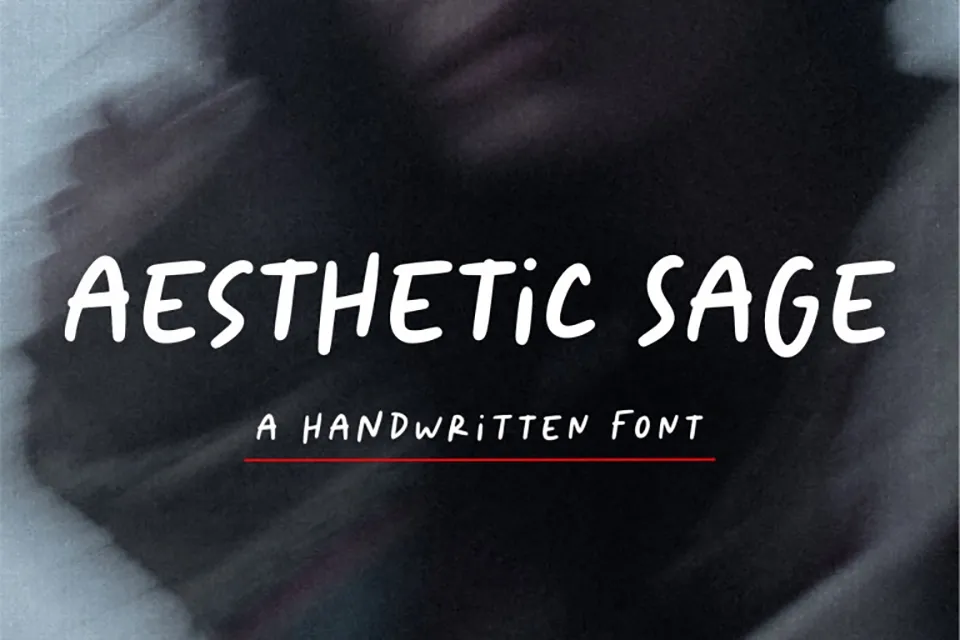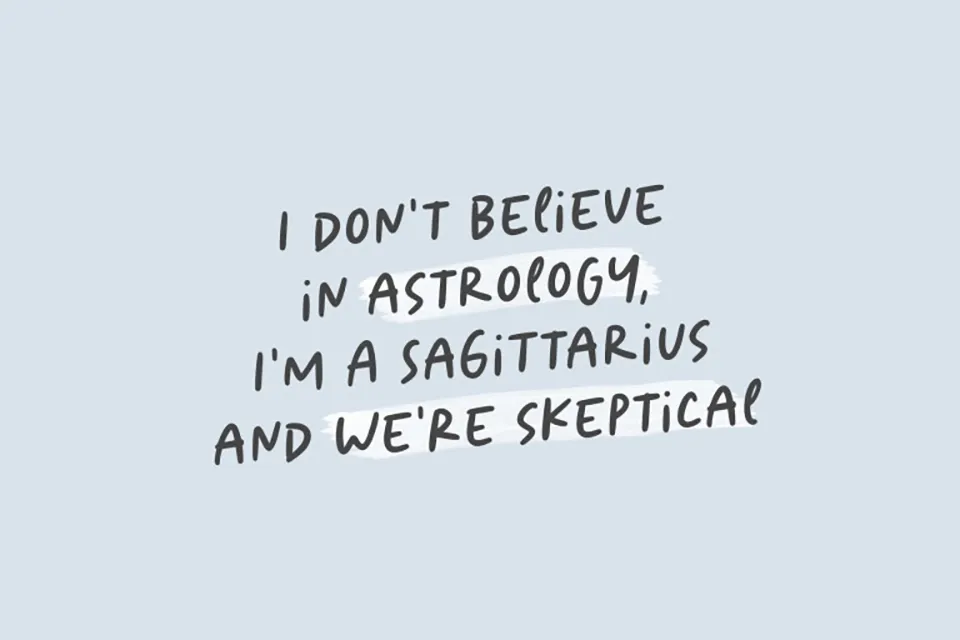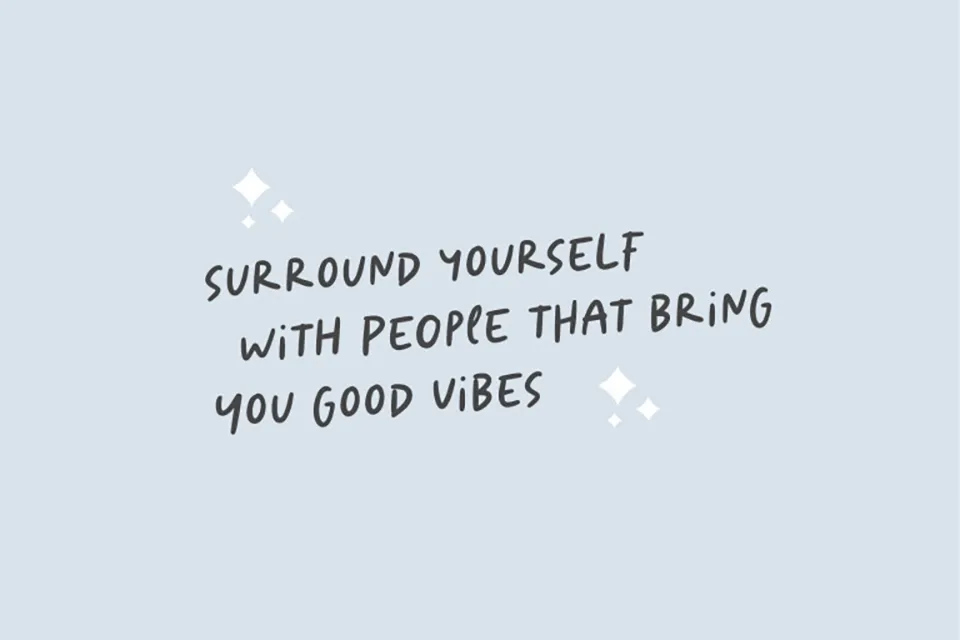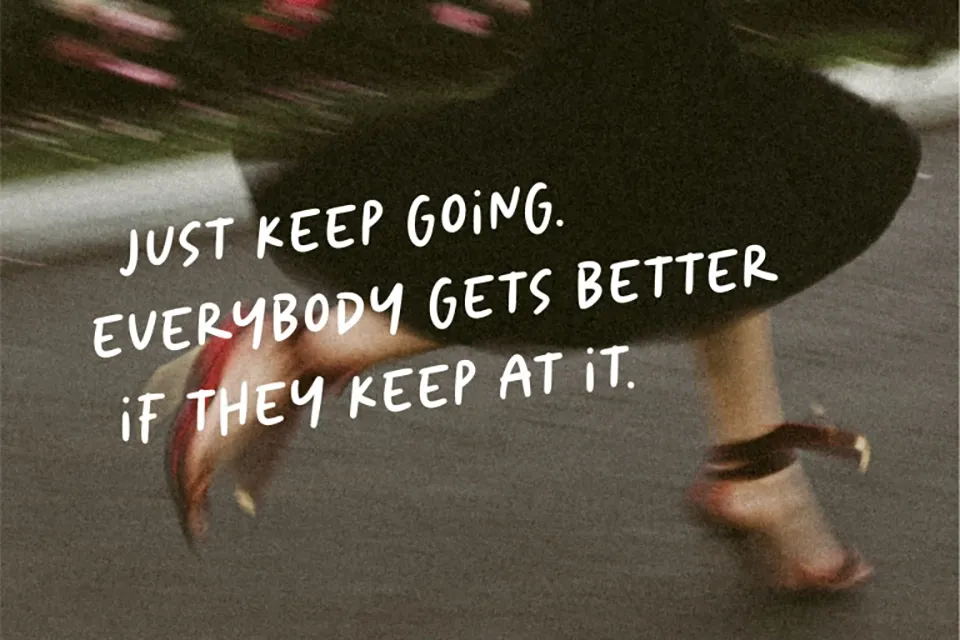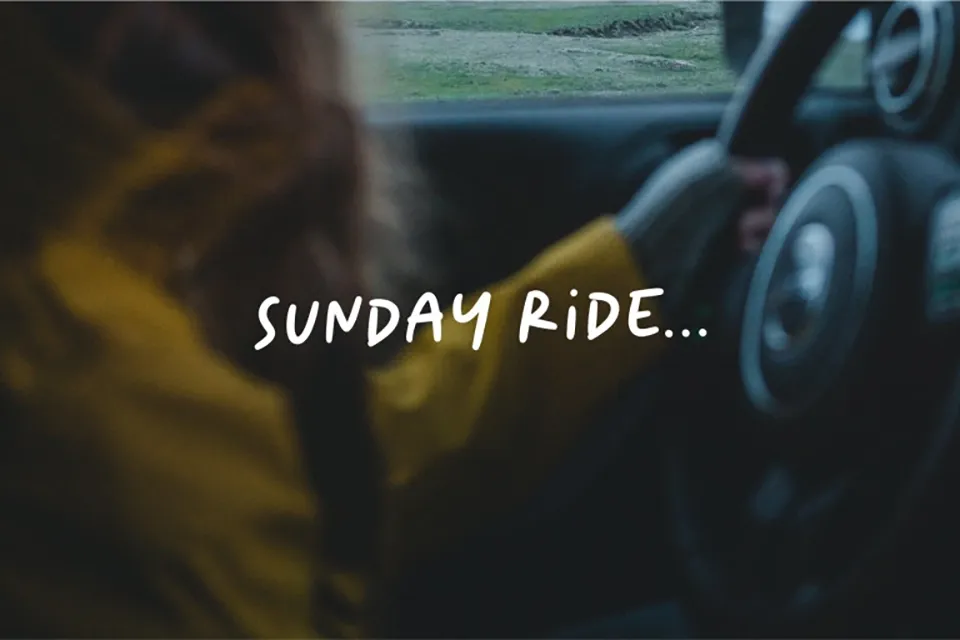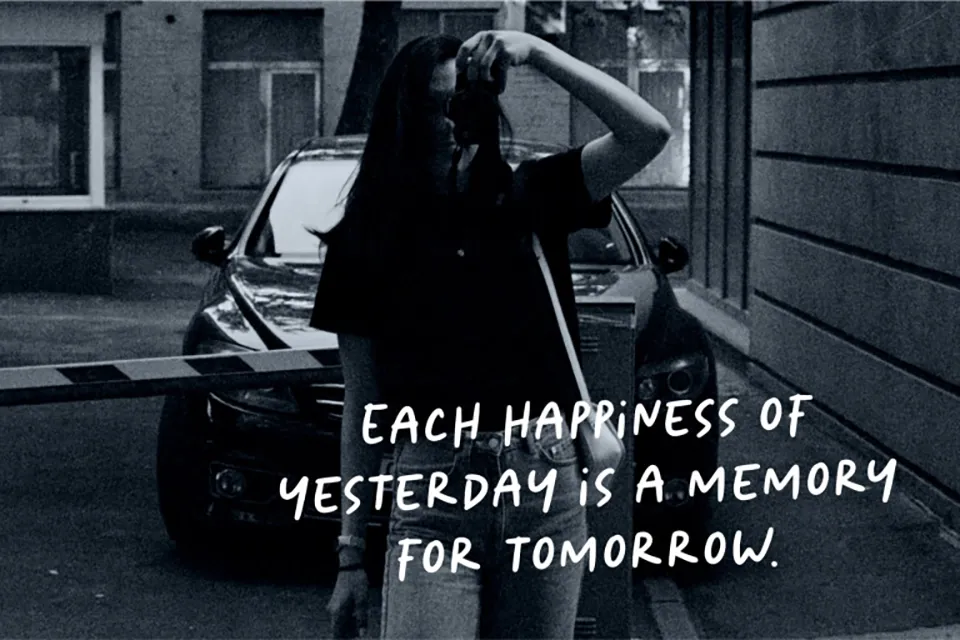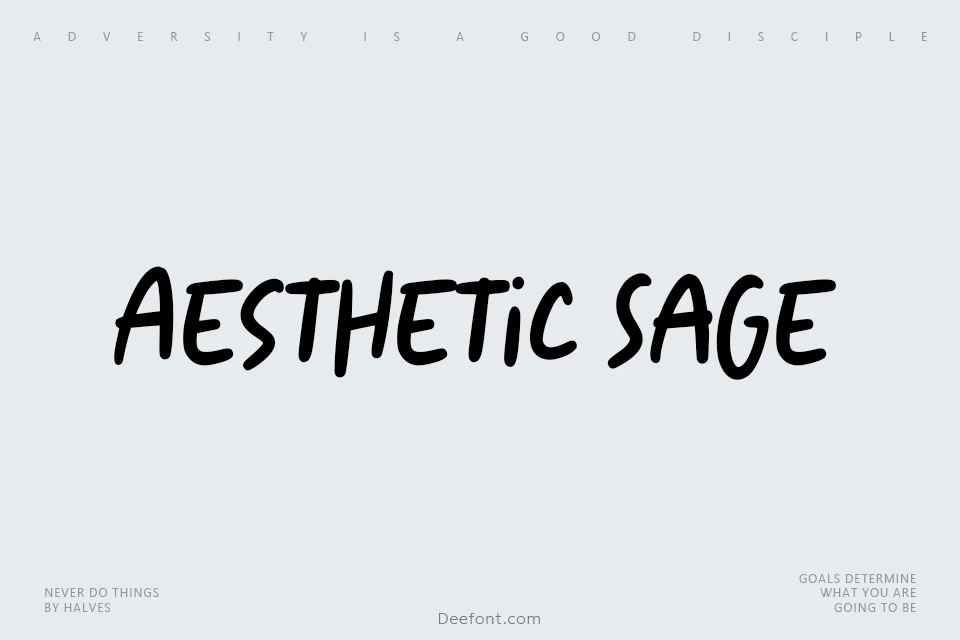
Aesthetic Sage Font
Aesthetic Sage Font is a charming handwritten font that exudes personality and warmth. With its casual, organic strokes, it captures the essence of handwritten notes, making it perfect for projects that require a personal and authentic touch. This versatile typeface is ideal for branding, social media graphics, invitations, and creative designs where a relaxed yet stylish vibe is desired. Its playful yet refined appearance ensures readability while adding character to any project. Aesthetic Sage brings a sense of individuality and creativity, making it a go-to choice for designers looking to infuse their work with a unique and heartfelt aesthetic.